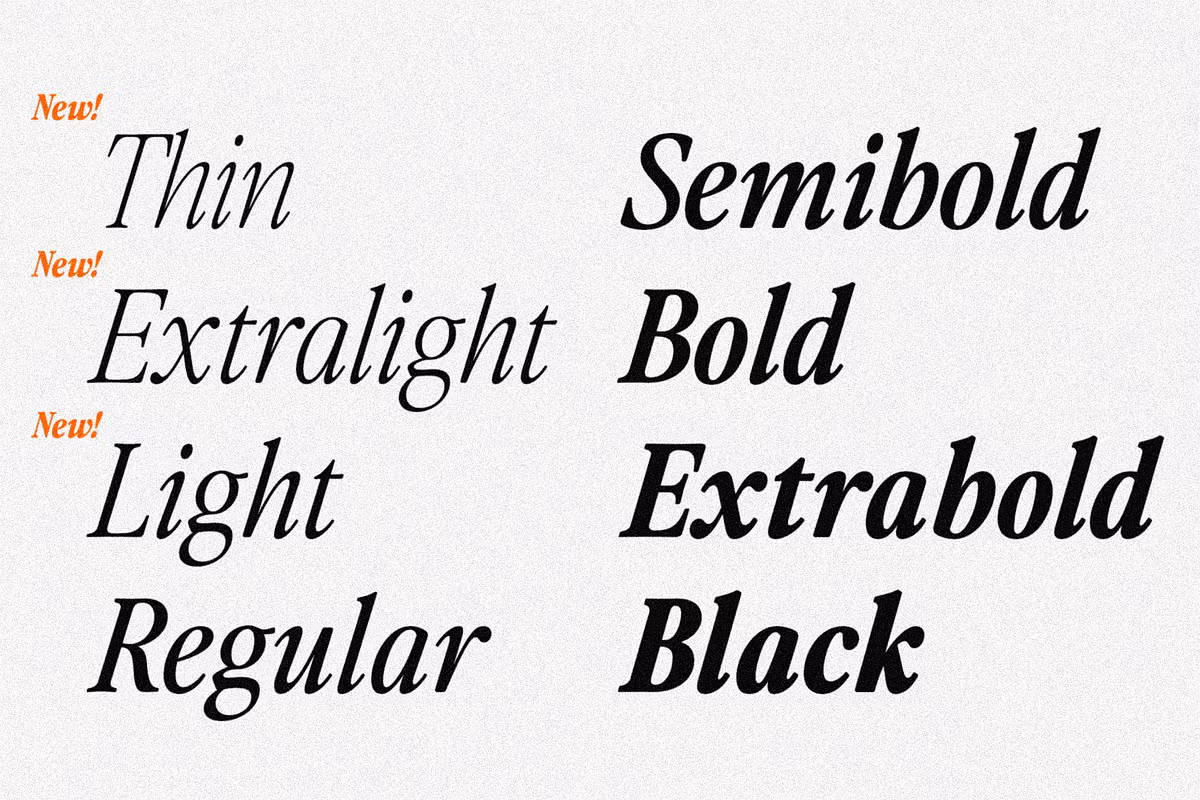
Perfectly Nineties 16-Font Family: Nostalgic Typeface for Creative Design
The Perfectly Nineties font family is a great way to add some nostalgia to your designs. It’s a typeface that takes inspiration from the 80s and 90s, but still looks modern and easy to read. This font family has 16 different fonts to choose from, including thin, regular, and black weights, and they all come in regular and italic styles. So, if you want to give your designs a retro feel without making them look old-fashioned, the Perfectly Nineties font is a good option.
It’s perfect for anyone who wants to add a bit of nostalgia to their work while still keeping it looking fresh and modern. With its unique blend of old and new, this font family is sure to make your designs stand out. Whether you’re working on a project that needs a touch of nostalgia or you just want to try something new, the Perfectly Nineties font family is definitely worth considering.
The Perfectly Nineties style is really inspired by old serif fonts that were popular back in the day. These fonts have letters that are close together, which gives them a retro look and makes them easy to read. This focus on details means that whether you use the font for headings or regular text, it looks great and is easy on the eyes.
The classic feel of these fonts is a nice throwback to the past, and they still work well today. Perfectly Nineties has a cool retro vibe that’s mixed with a modern feel, which makes it great for lots of different design projects.
Character Sets and Features
The Perfectly Nineties typeface includes a comprehensive character set that allows for versatile use across different languages and design needs. Each font in the family features uppercase and lowercase letters, numbers, and punctuation marks, providing you with everything you need for a complete typographic experience.
This font family also supports languages from other countries, so designers can connect with more people without losing their style. It comes with normal and italic versions, which gives you more ways to express yourself through your typography, making it easier to create eye-catching designs.
Font Weights
- Thin
- Extralight
- Light
- Regular
- Semibold
- Bold
- Extrabold
- Black
The Perfectly Nineties family is really versatile, which makes it great for lots of different projects. Here are some popular ways to use this retro font that can really make it stand out:
- Branding: Perfectly Nineties can help create a memorable brand identity that resonates with audiences familiar with the aesthetics of the 90s.
- Print Media: The font family is really good for magazines, flyers, or posters, providing a stylish, easy-to-read design.
- Events and Invitations: It’s a great choice for designing event invitations or promotional materials for retro-themed gatherings.
- Web Design: The style can work really well on websites, ensuring clarity and charm.
To really make the Perfectly Nineties typeface stand out, try combining it with some other fonts that complement its style. This can really elevate your design projects and make them look great. Here are a few suggestions for font pairings that work well with Perfectly Nineties:
- Nineties Headliner: A sans serif font that complements the Perfectly Nineties style beautifully.
- Lovely Script: An elegant script font that flows nicely and adds sophistication.
- Essential Sans: A simple and modern sans serif that pairs well with the nostalgic feel.
The Perfectly Nineties 16-Font Family is so much more than just a font – it’s like a time machine that takes you back to the good old days. With all its different weights and clever design touches, it’s a total game-changer for designers who want to capture the essence of the 90s without sacrificing readability.
Whether you’re into branding, printing, or digital design, this font family is the perfect way to add some retro flair to your projects and make them really stand out. It’s all about finding that balance between old-school charm and modern style, and the Perfectly Nineties typeface totally nails it. So why not give it a try and see how it can take your creative work to the next level?